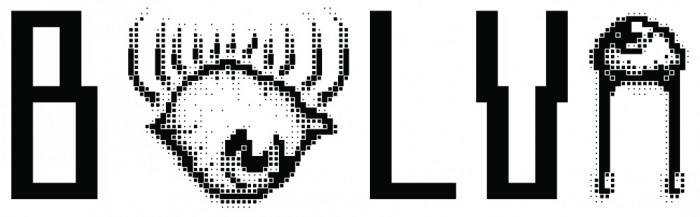
I totally love it, obviously you're getting better and make a huge progress  ... :)
You might want to check the width of space… It seems a tad wide…
ještě slzavé ä, ë, ï, ö, ü.
slz není nikdy dost!
But I don't want to change it.
This is so cool, love the artistic approach!
Vowel E no eye >:C
Pretty cool dude!